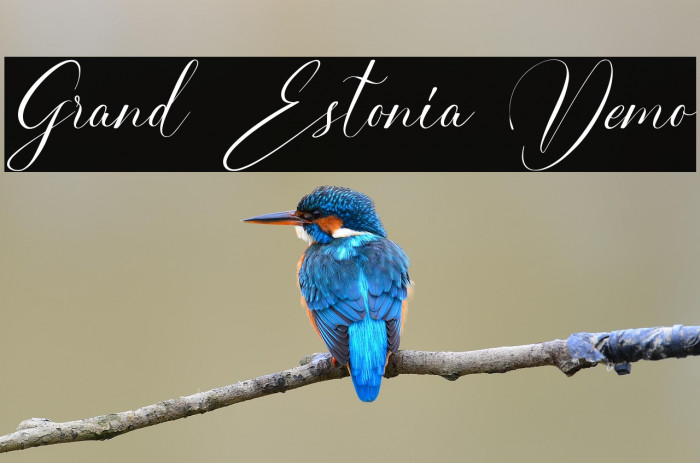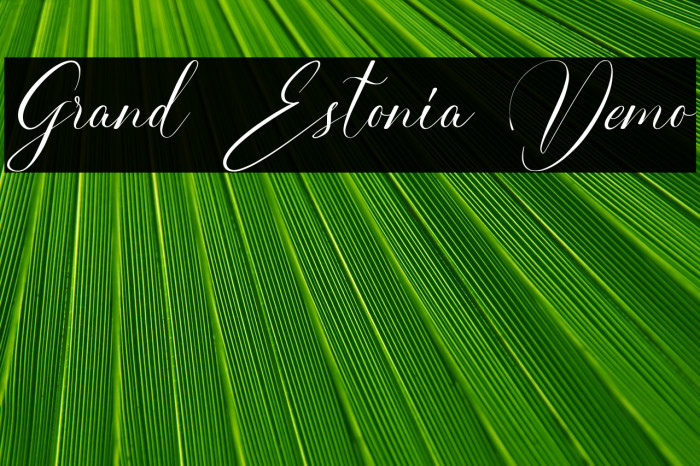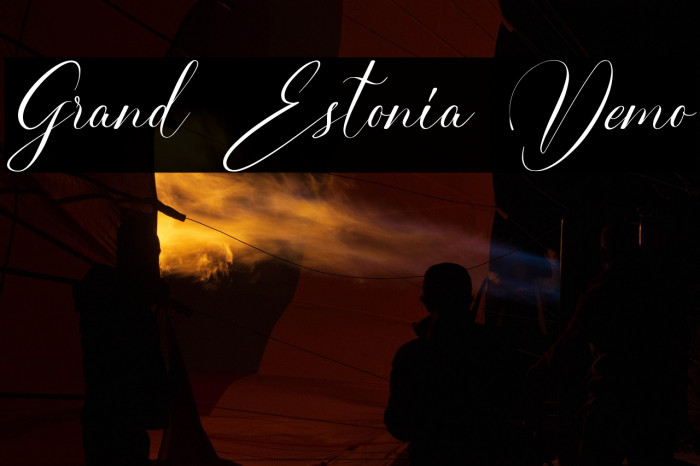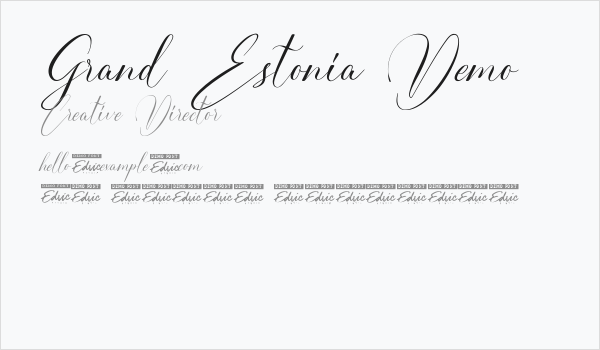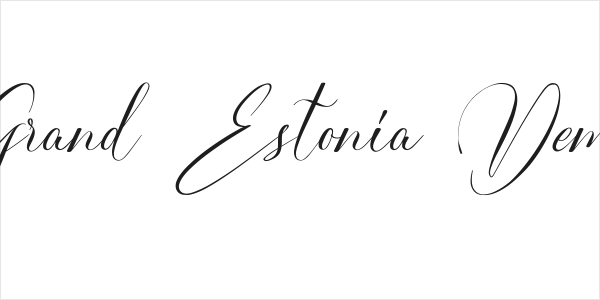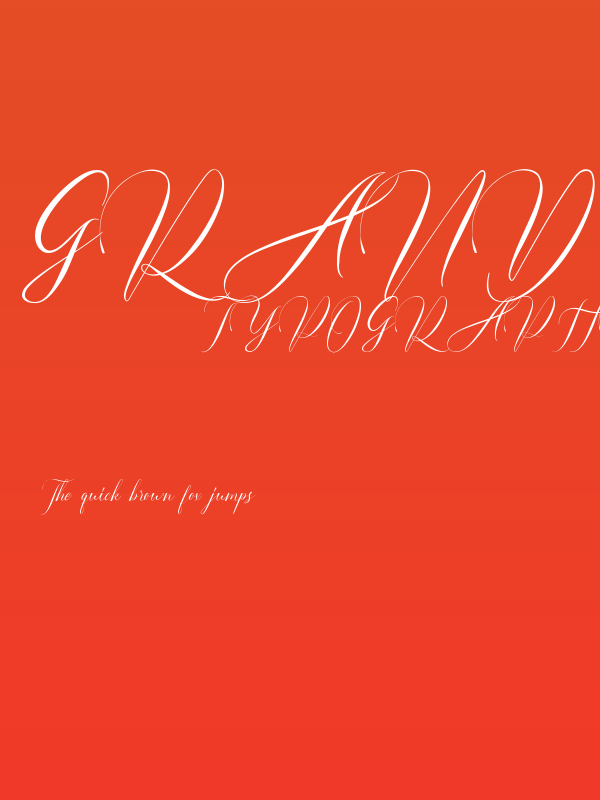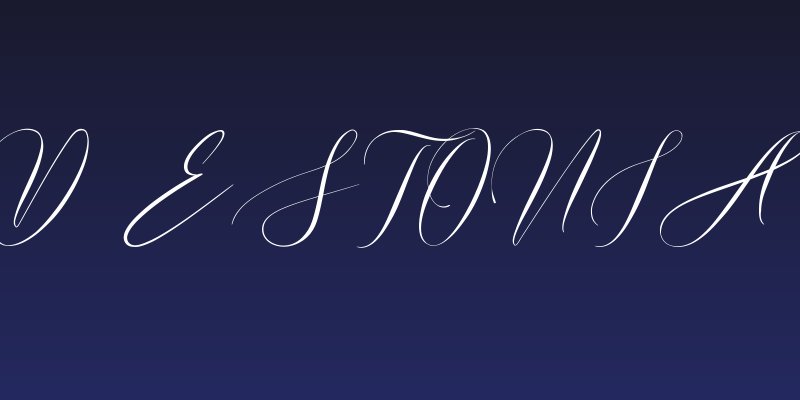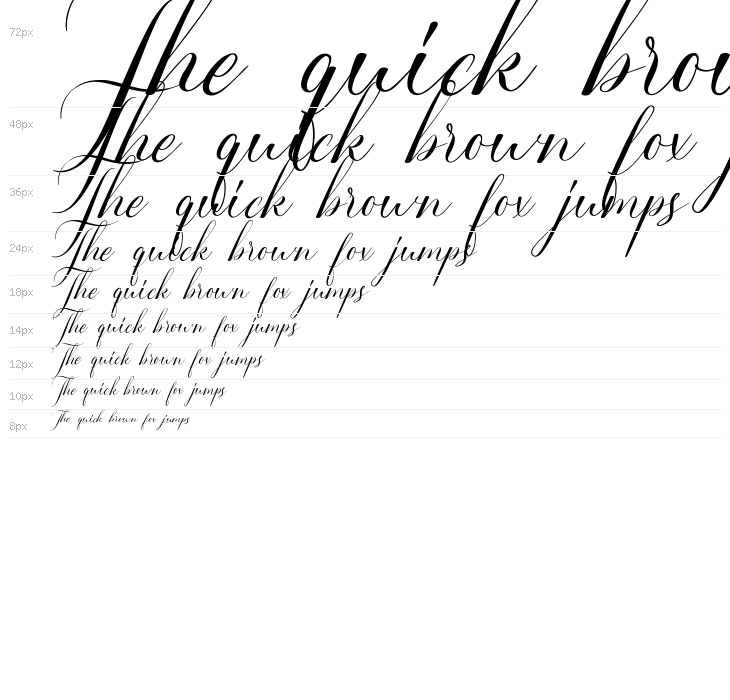
Grand Estonia Demo Font
Grand Estonia Demo Description
This font exudes elegance and sophistication with its fluid, cursive style. The letters are intricately designed with sweeping curves and delicate strokes, giving it a handwritten appearance. The uppercase letters are particularly ornate, featuring extended flourishes that add a touch of drama and flair. The lowercase letters maintain a consistent flow, complementing the uppercase with their graceful loops and connections. This font is perfect for projects that require a personal, artistic touch, such as invitations, greeting cards, and branding materials. Its decorative nature makes it ideal for creating a luxurious and refined aesthetic.
| Overall Style | Elegant, Decorative |
| Use Case | Headlines, Invitations, Branding |
| Proposed Projects | Ideal for wedding invitations, luxury branding, greeting cards, and artistic projects. |